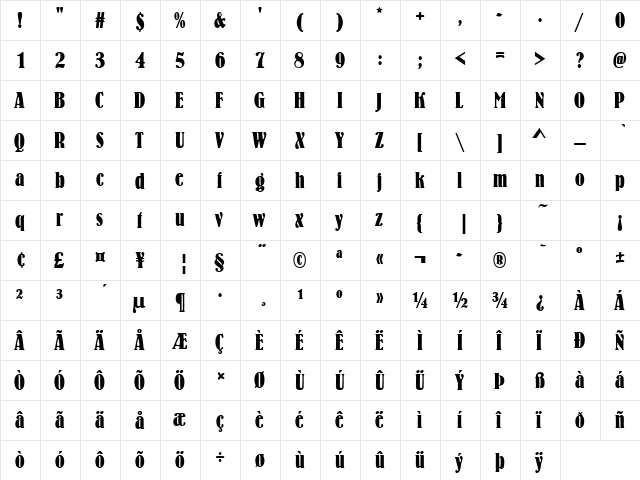
BernhardAntDBolCon Regular Font Preview
BernhardAntDBolCon Regular
BernhardAntDBolCon Regular Font Details
Design Context for BernhardAntDBolCon Typeface
BernhardAntDBolCon offers clean, dependable letterforms without strong stylistic allegiance, making it a practical choice for designers who need flexibility.
Pro Tip: Use BernhardAntDBolCon in both headline and body roles to test its range before committing to a single application.